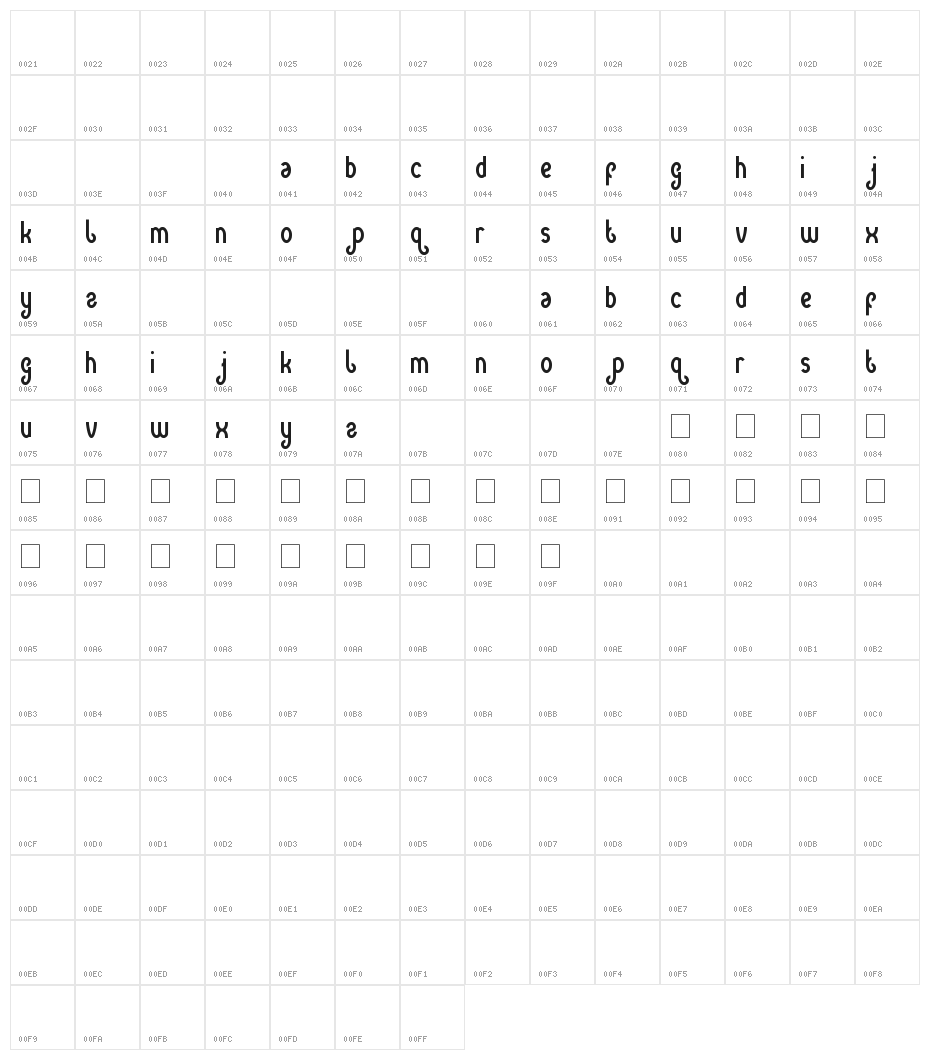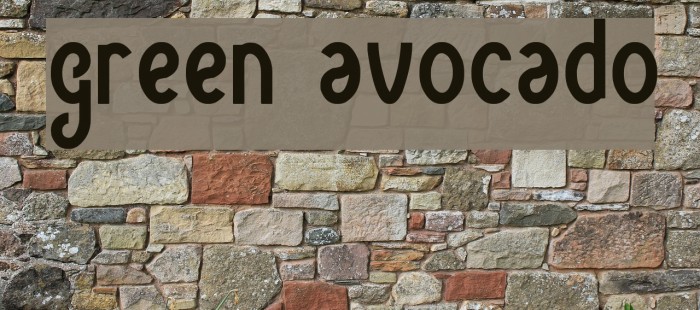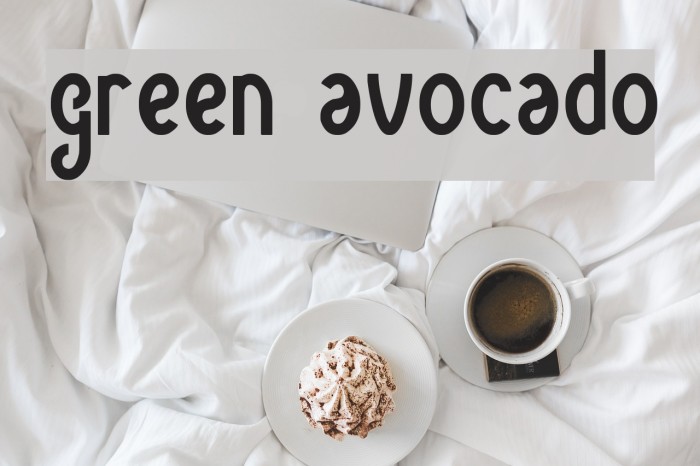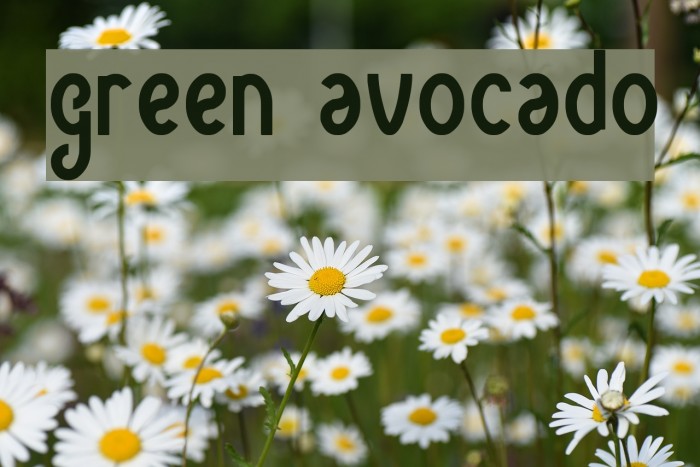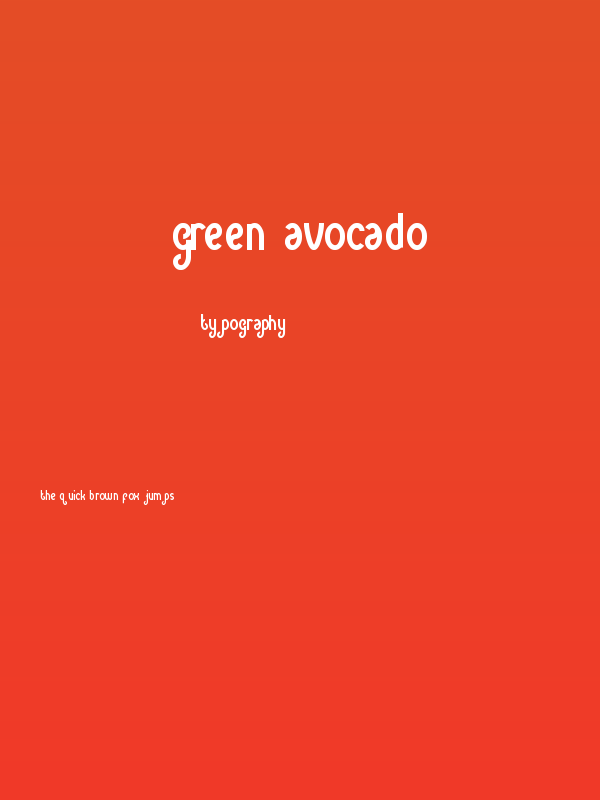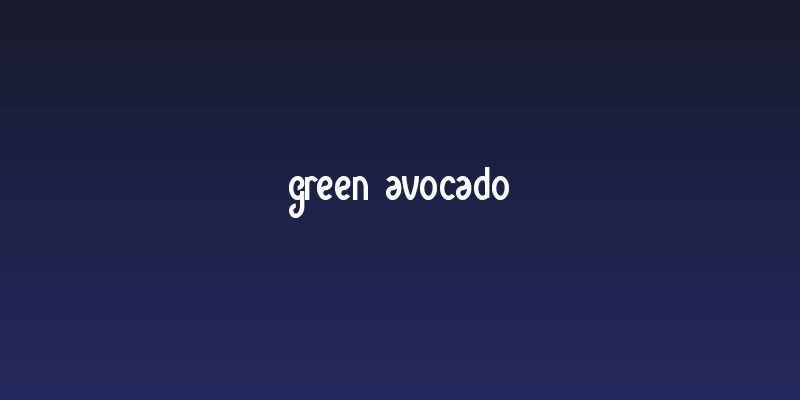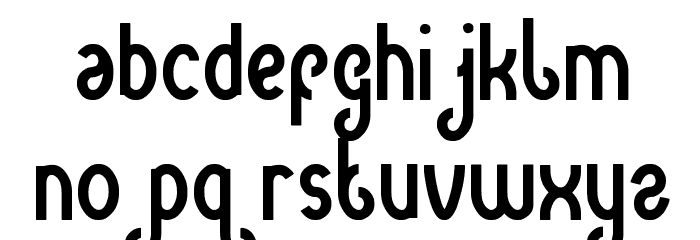
green avocado Font
green avocado Description
This font features a unique and playful design with a modern twist. The characters are crafted with a distinctive style, incorporating smooth curves and rounded edges that give it a friendly and approachable appearance. The letters have a consistent stroke width, providing a clean and uniform look. The font's quirky elements, such as the unconventional shapes of certain letters, add a touch of creativity and fun. It maintains readability while offering a fresh and contemporary aesthetic, making it suitable for a variety of design projects.